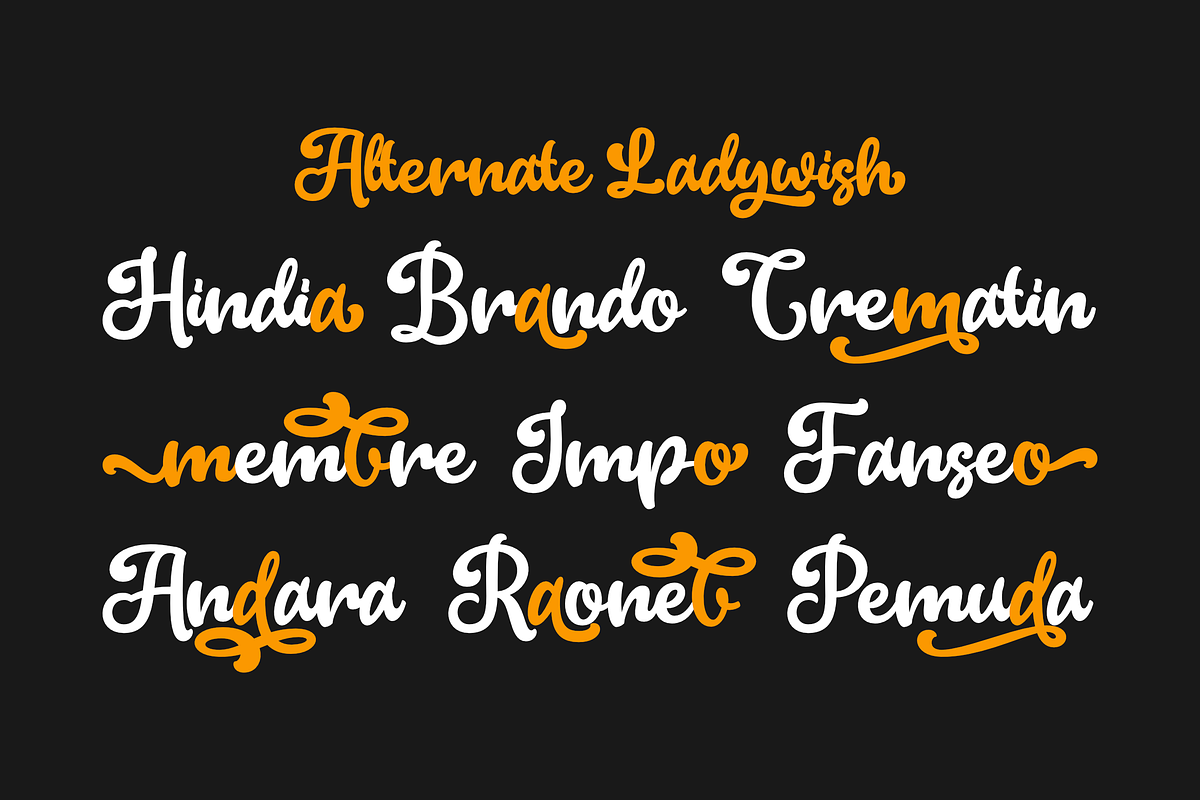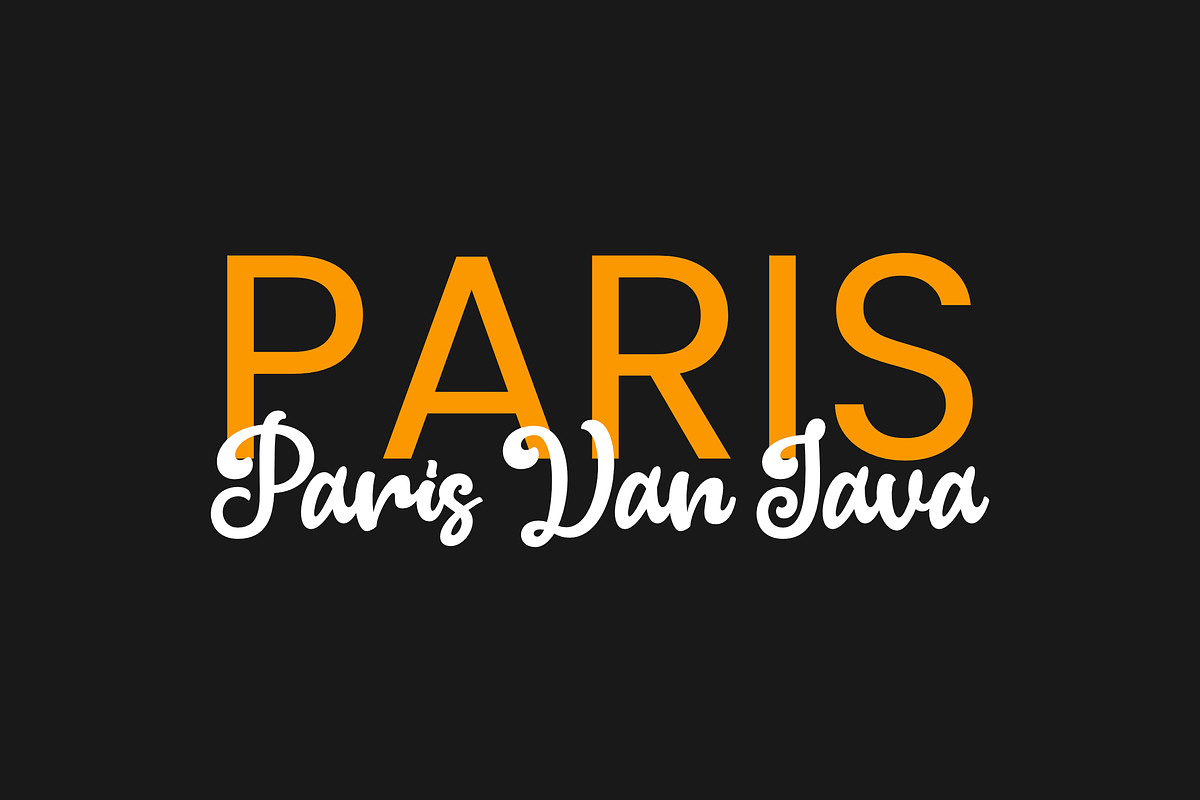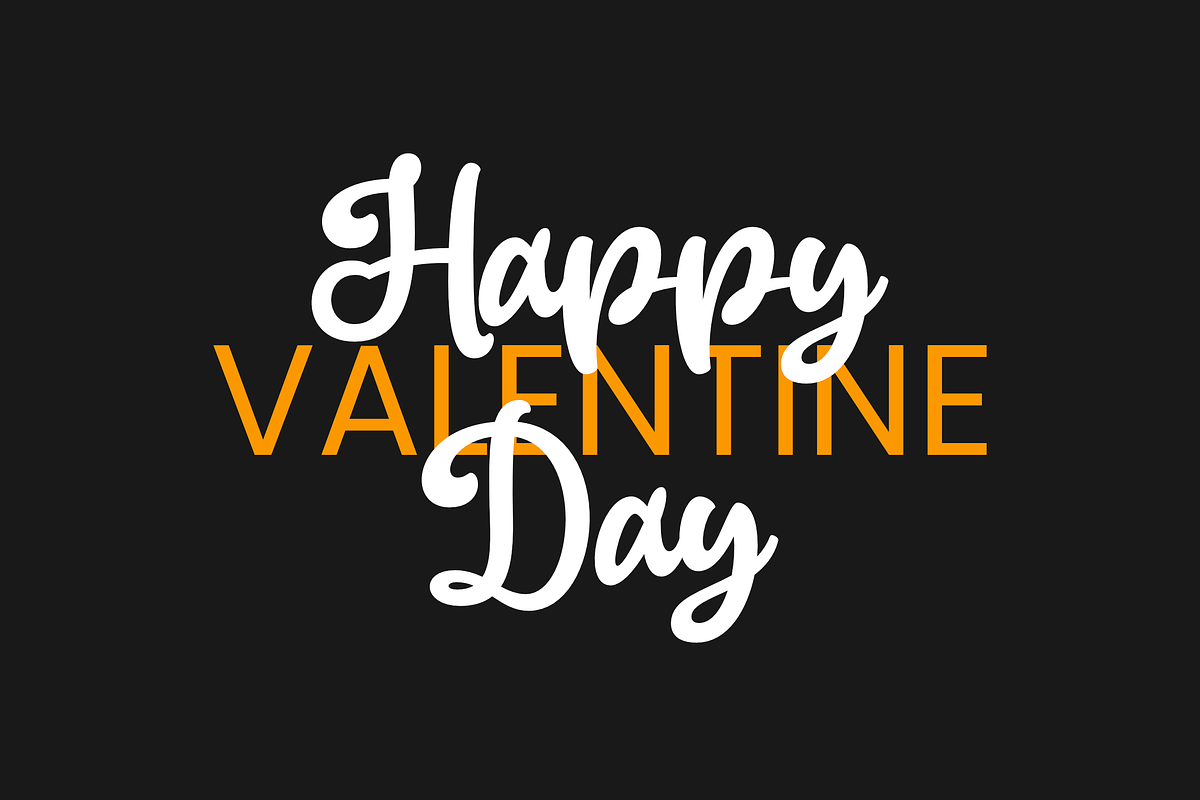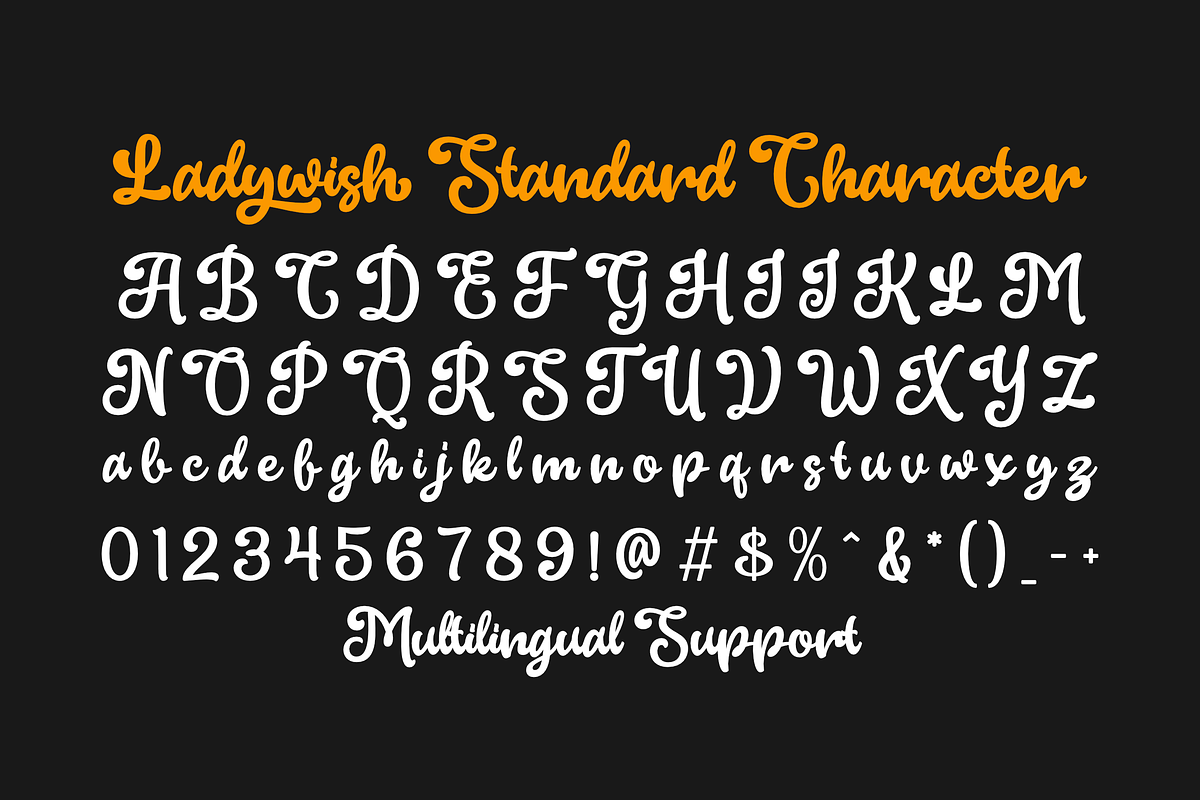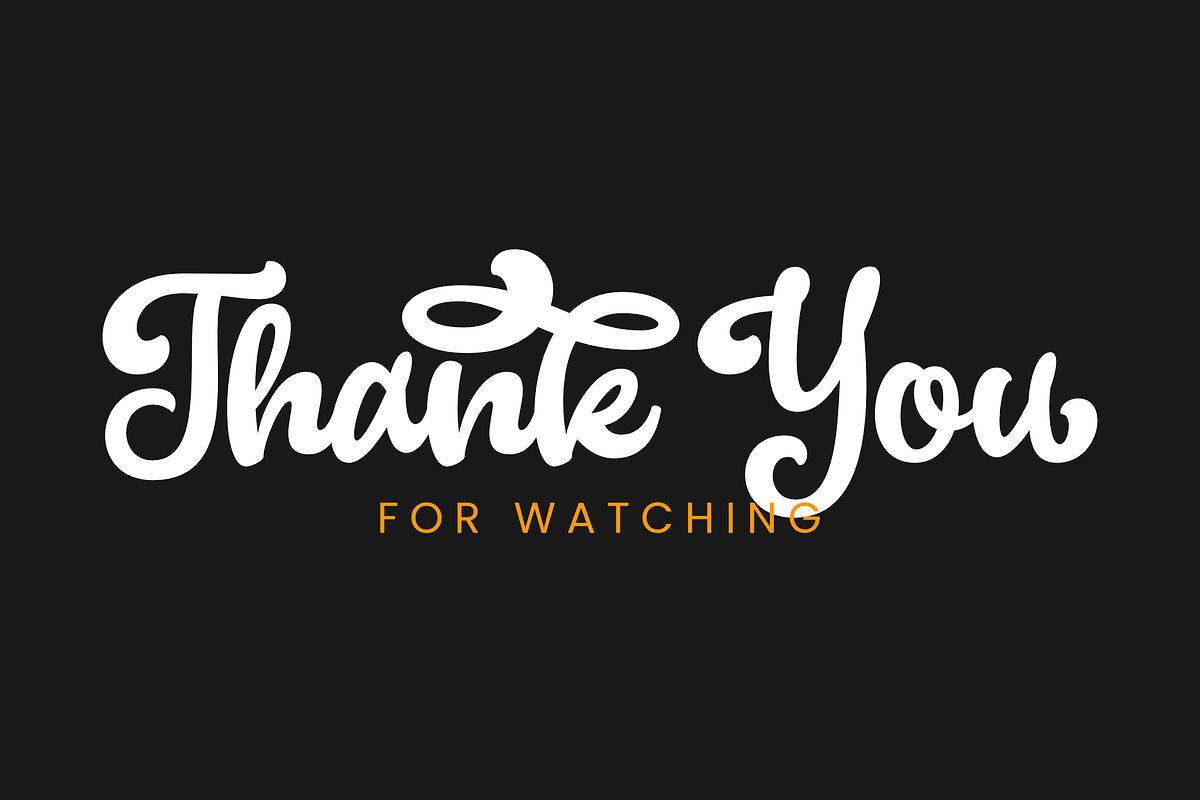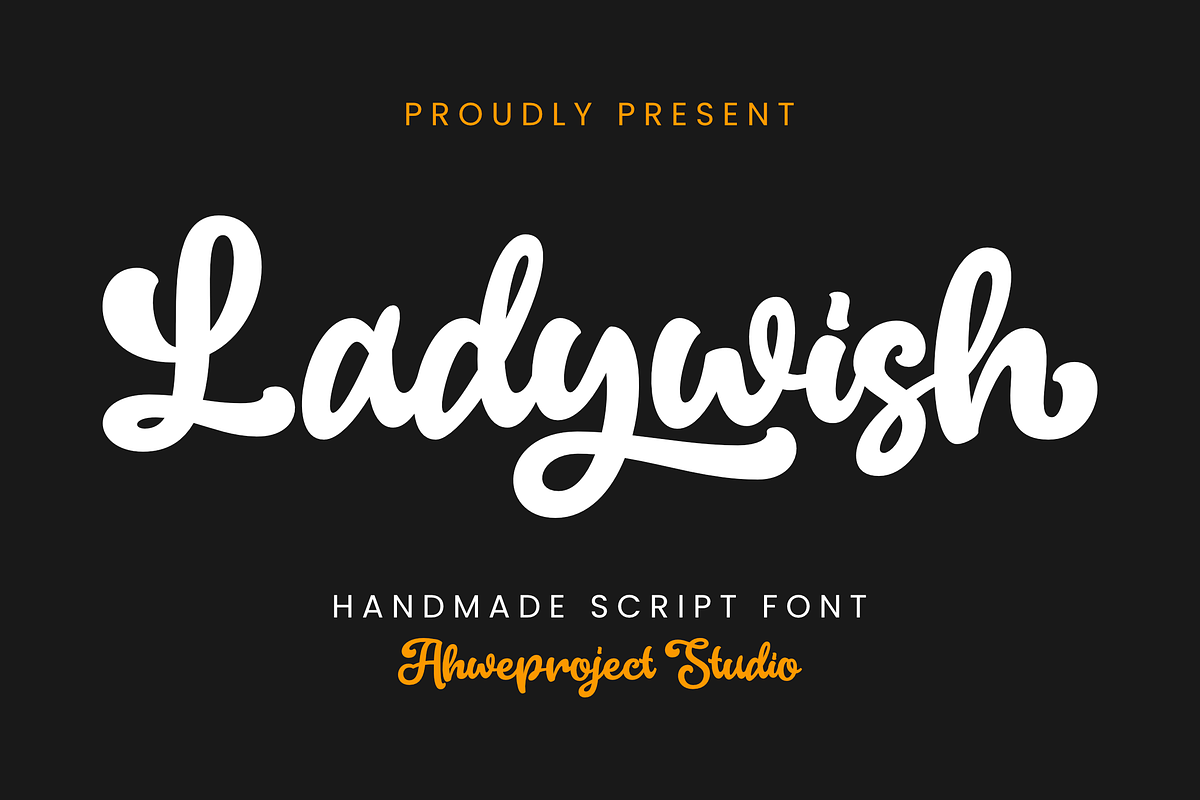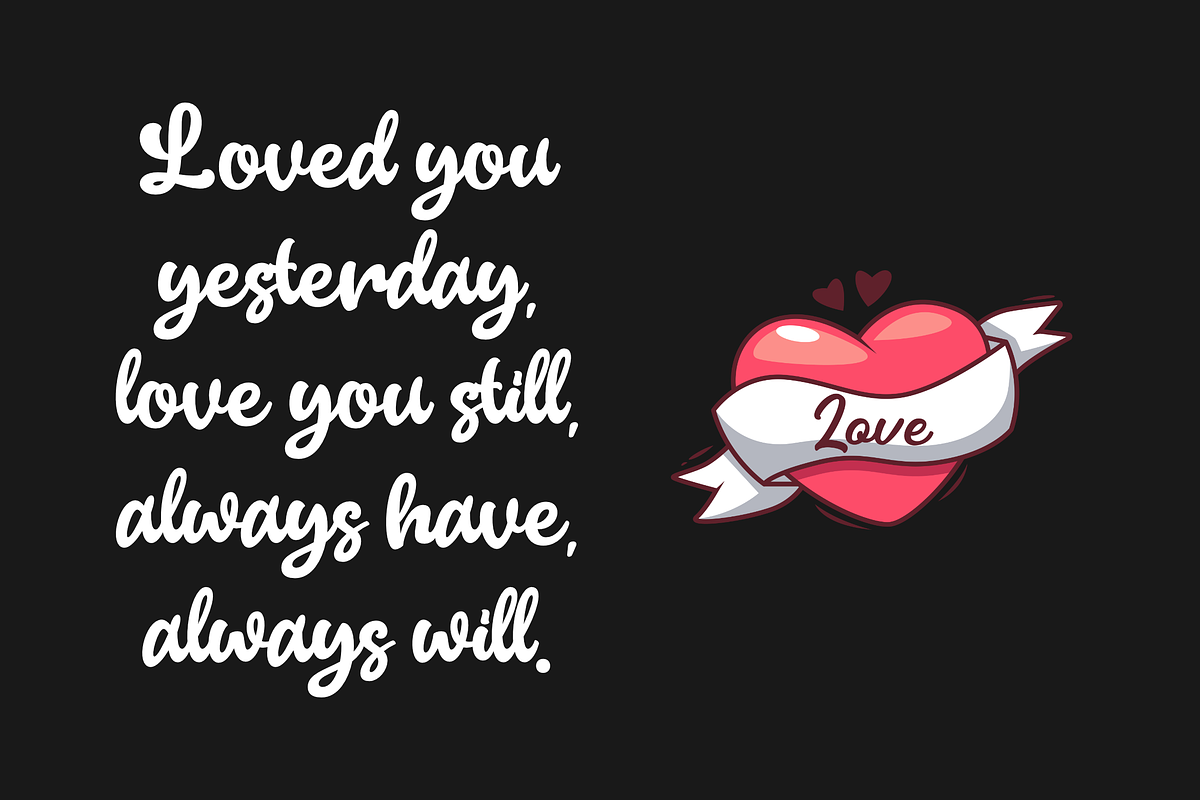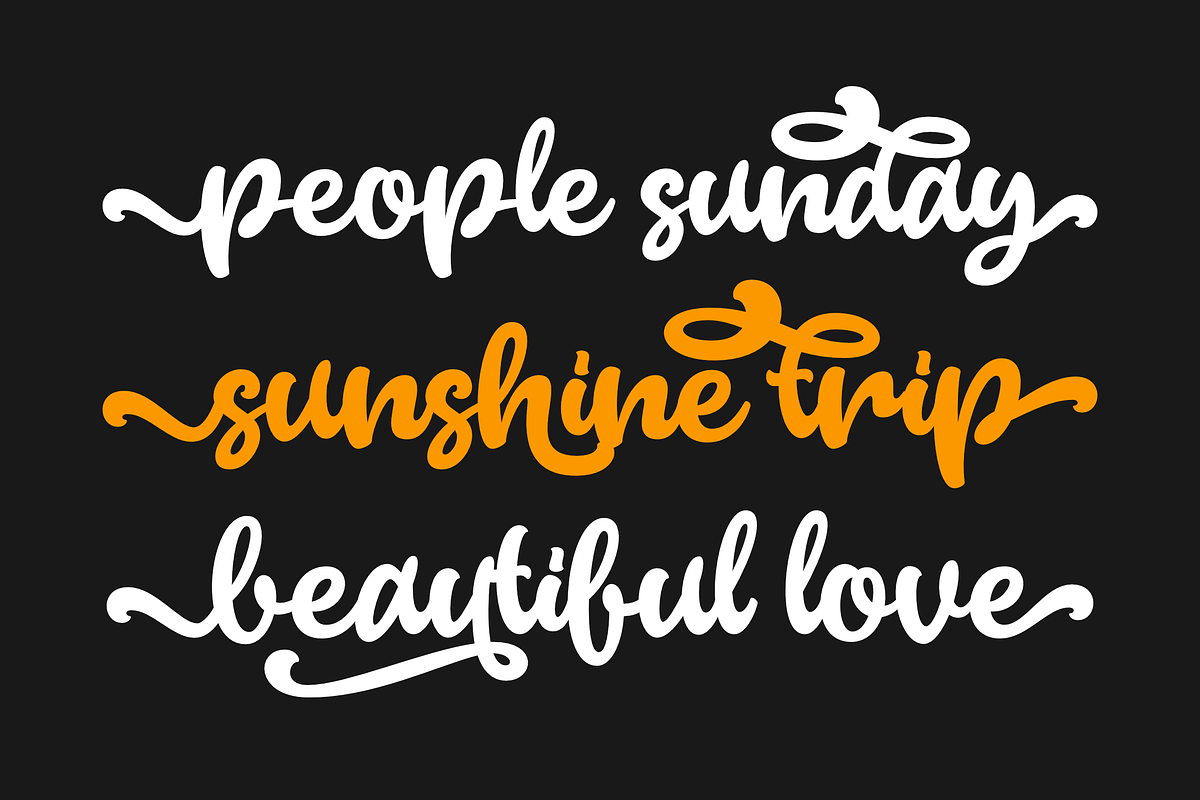
Ladywish
Ladywish is a romantic and sweet calligraphy typeface with characters that dance along the baseline. It has a casual, yet elegant touch. It is perfect for branding projects, logos, wedding designs, social media posts, advertisements, product packaging, product designs, labels, photography, watermarks, invitations, stationery and any projects that need handwriting taste. This font is PUA encoded which means you can access all of the glyphs and swashes with ease!